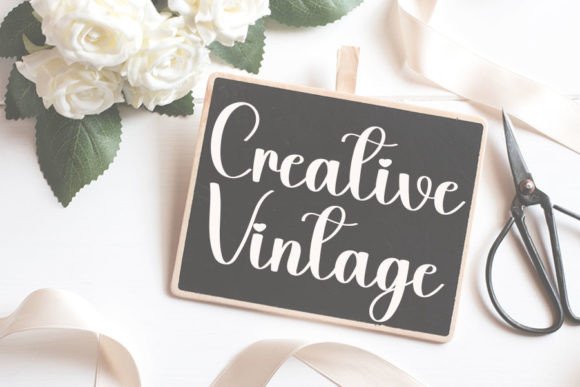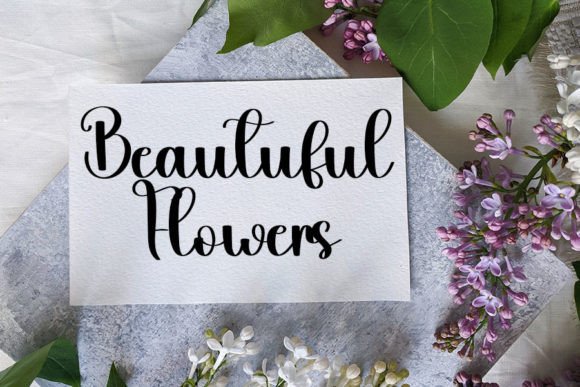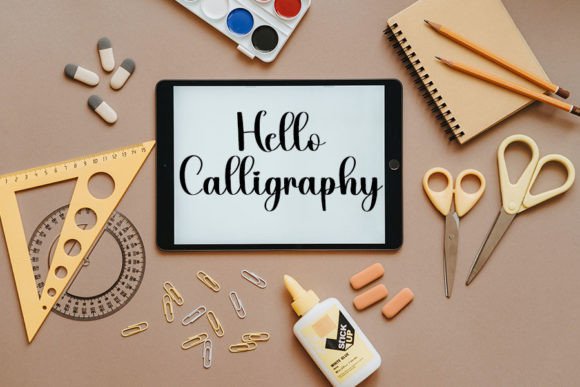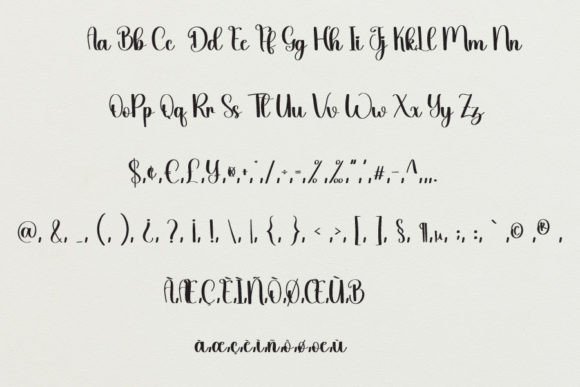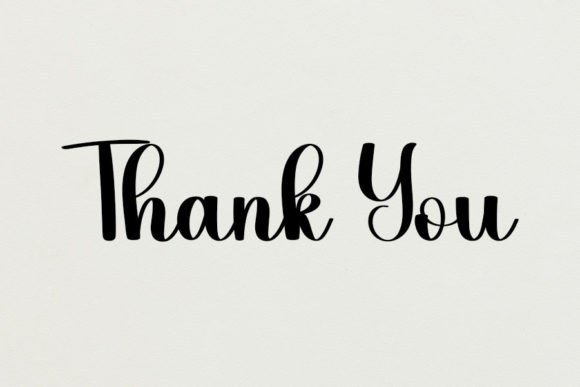
Eagle Font: Elevate Your Designs with a Sweet and Luxurious Handwritten Style
Are you looking for a font that can add a touch of elegance and sophistication to your design projects? Look no further than the Eagle Font! This beautiful handwritten font is perfect for designers and crafters who want to create stunning visuals that exude luxury and refinement.
What Makes Eagle Font So Special?
Eagle Font is a sweet and beautiful handwritten font that features characters that dance along the baseline, creating a sense of movement and fluidity. This unique characteristic sets it apart from other fonts and makes it perfect for designs that require a touch of whimsy and personality. Whether you’re working on a branding project, a wedding invitation, or a packaging design, Eagle Font is sure to add a luxury spark that will make your work stand out.
Key Features of Eagle Font
- Handwritten style: Eagle Font is a genuine handwritten font that captures the essence of human writing. Its imperfections and quirks make it feel more personal and relatable.
- Dancing characters: The characters in Eagle Font dance along the baseline, creating a sense of movement and energy. This feature adds a playful touch to any design.
- Luxury feel: Despite its playful nature, Eagle Font exudes luxury and sophistication. Its elegant lines and curves make it perfect for high-end designs.
- Versatile: Eagle Font is versatile and can be used for a wide range of design projects, from branding and advertising to packaging and stationery.